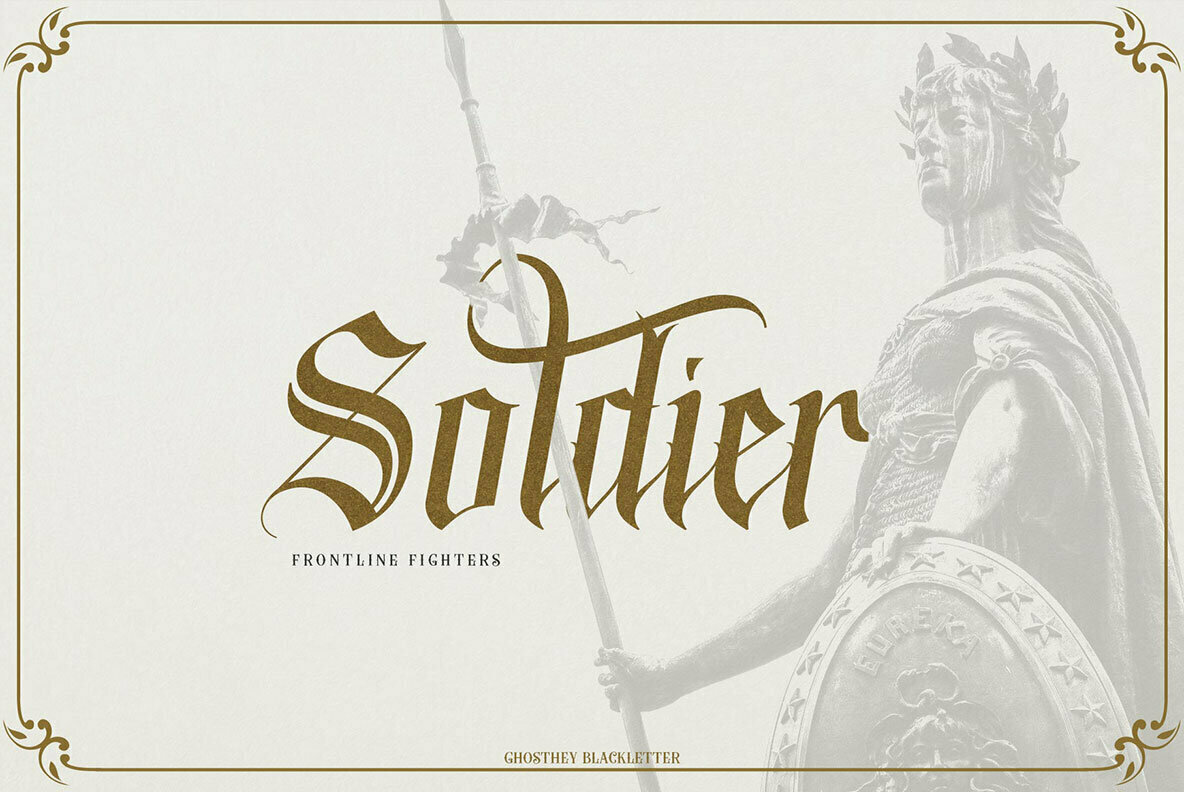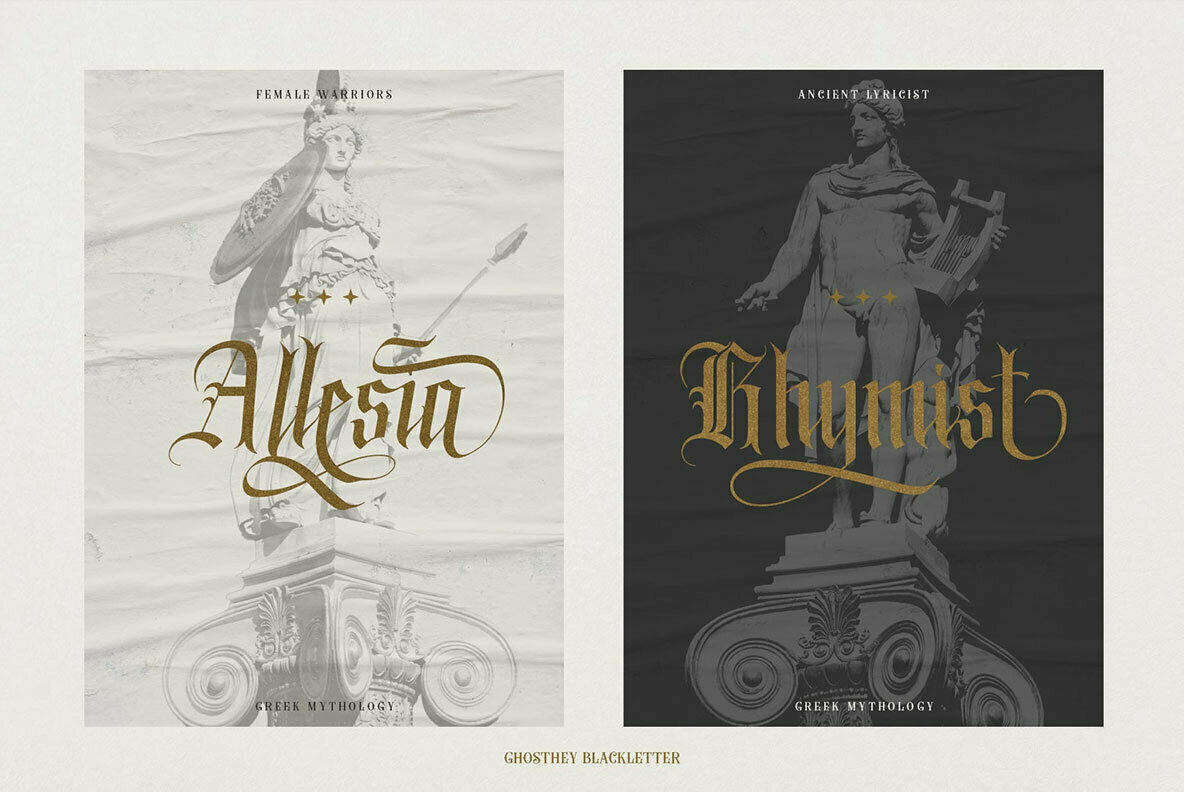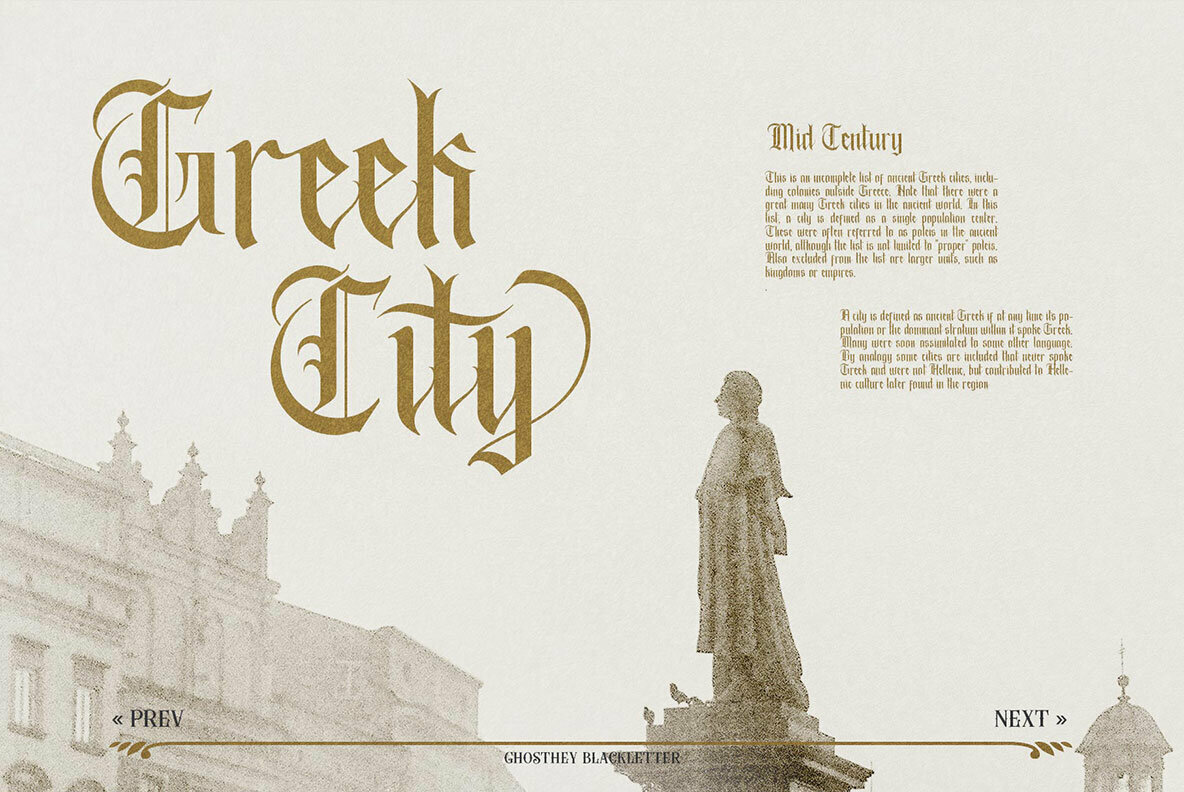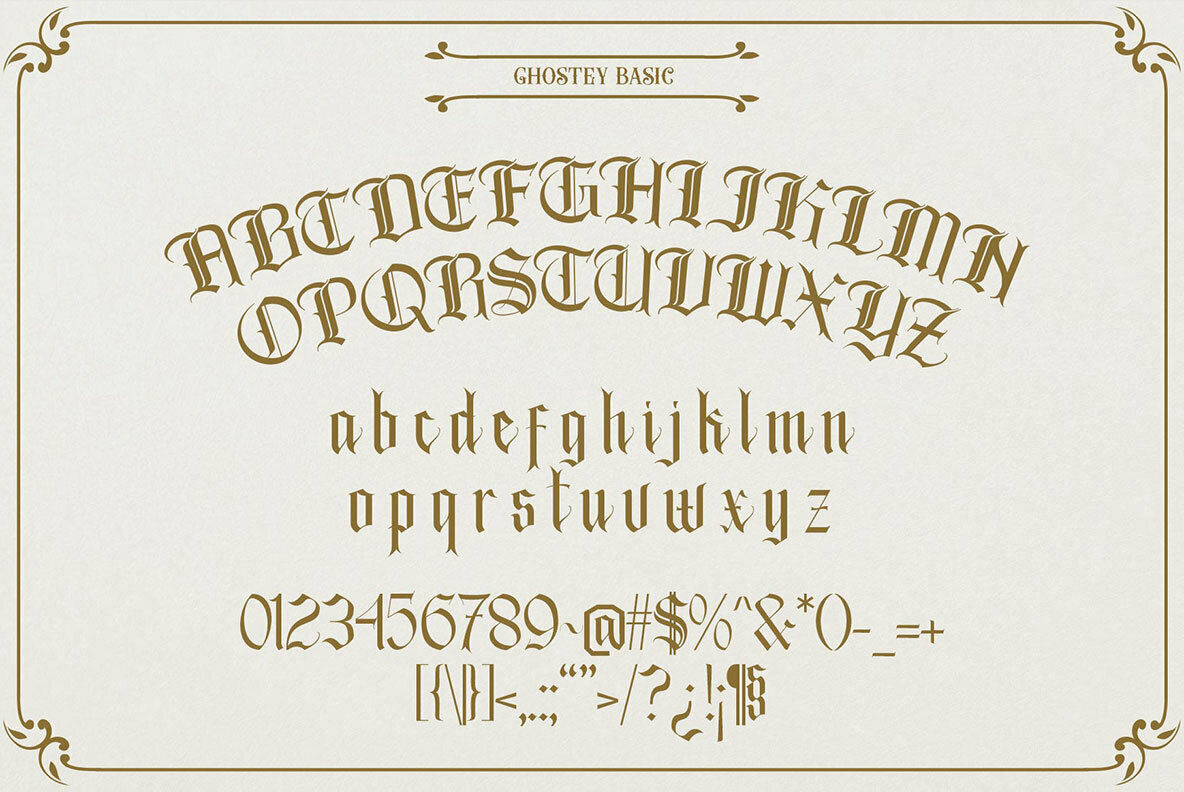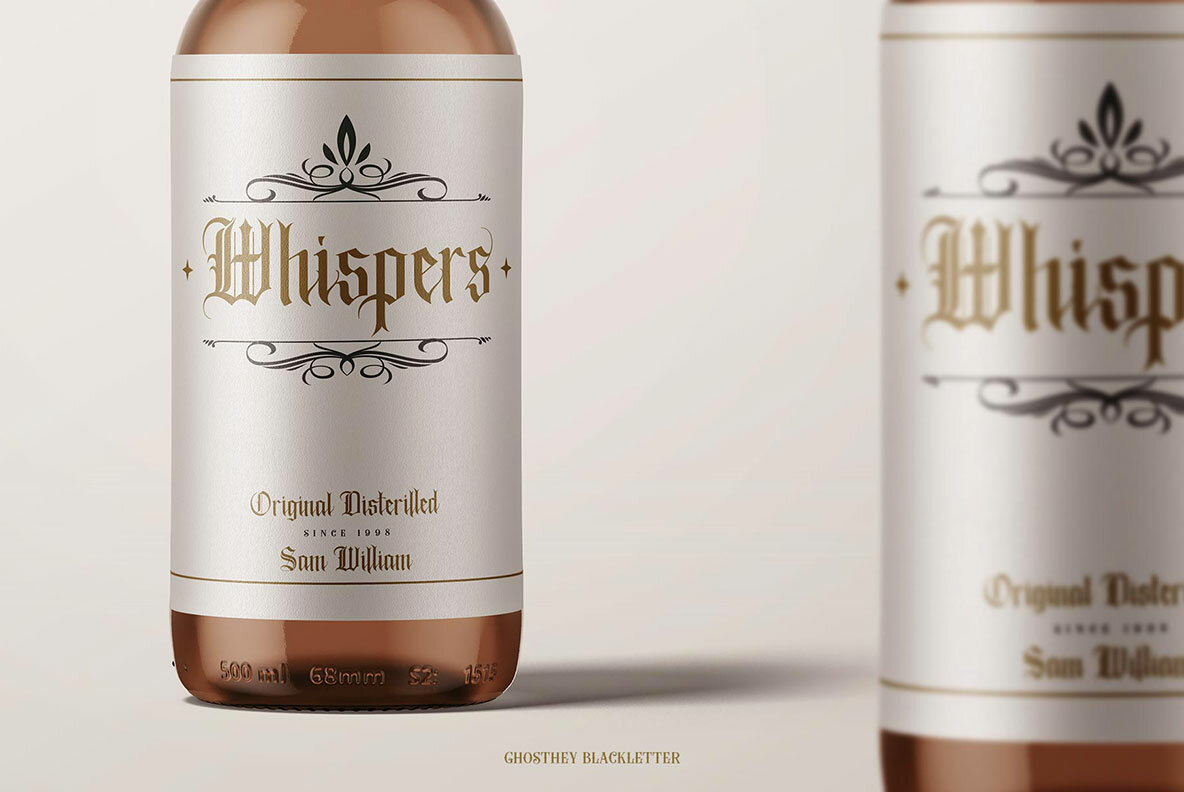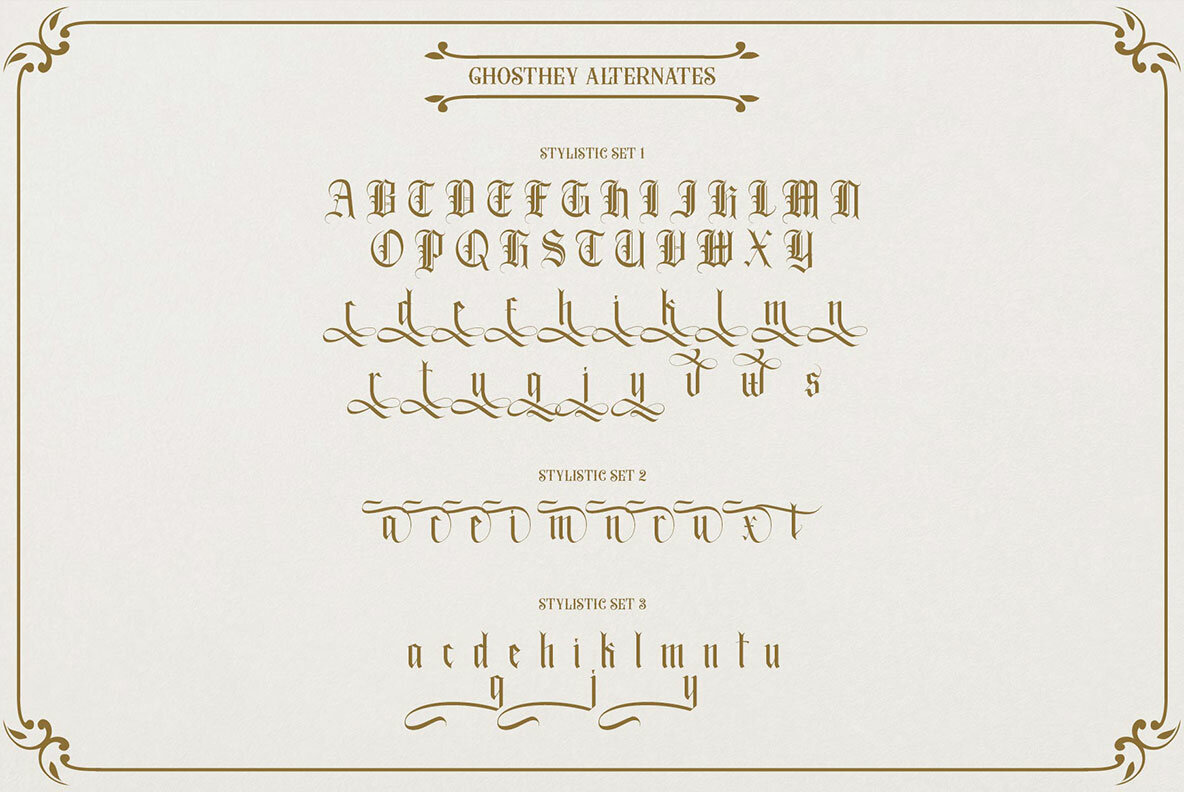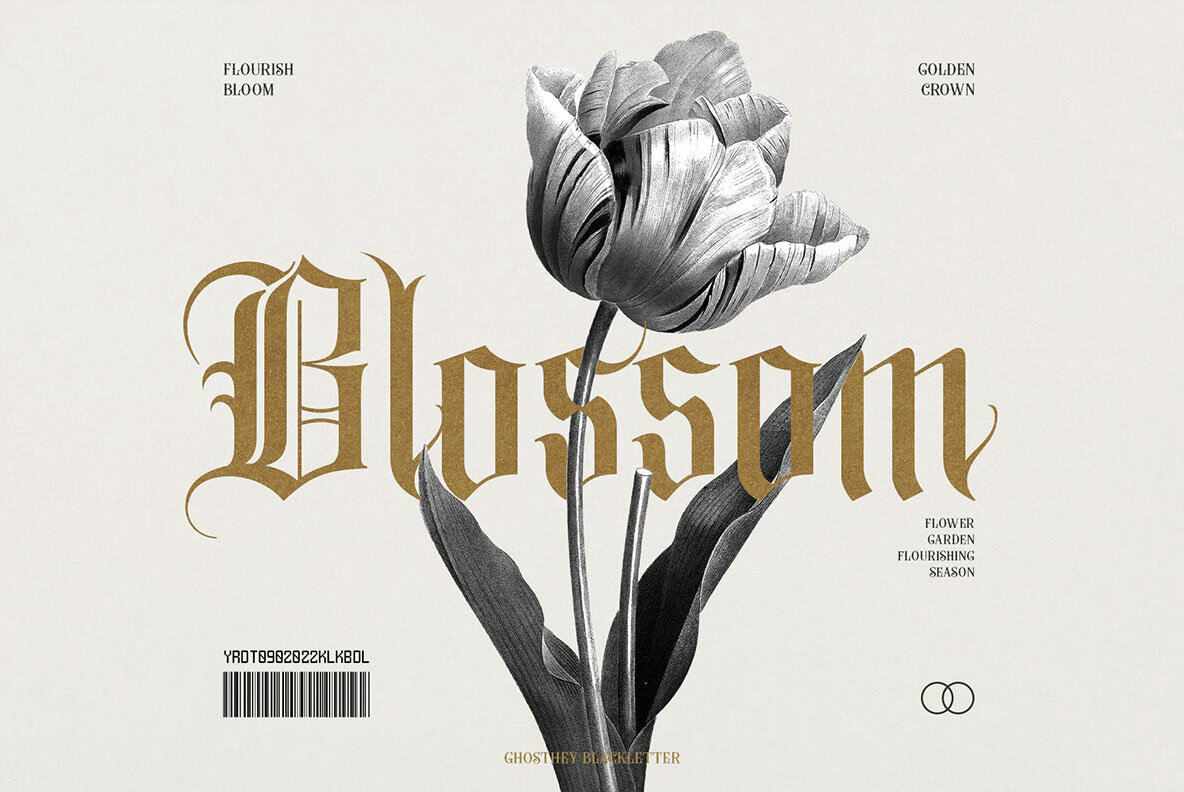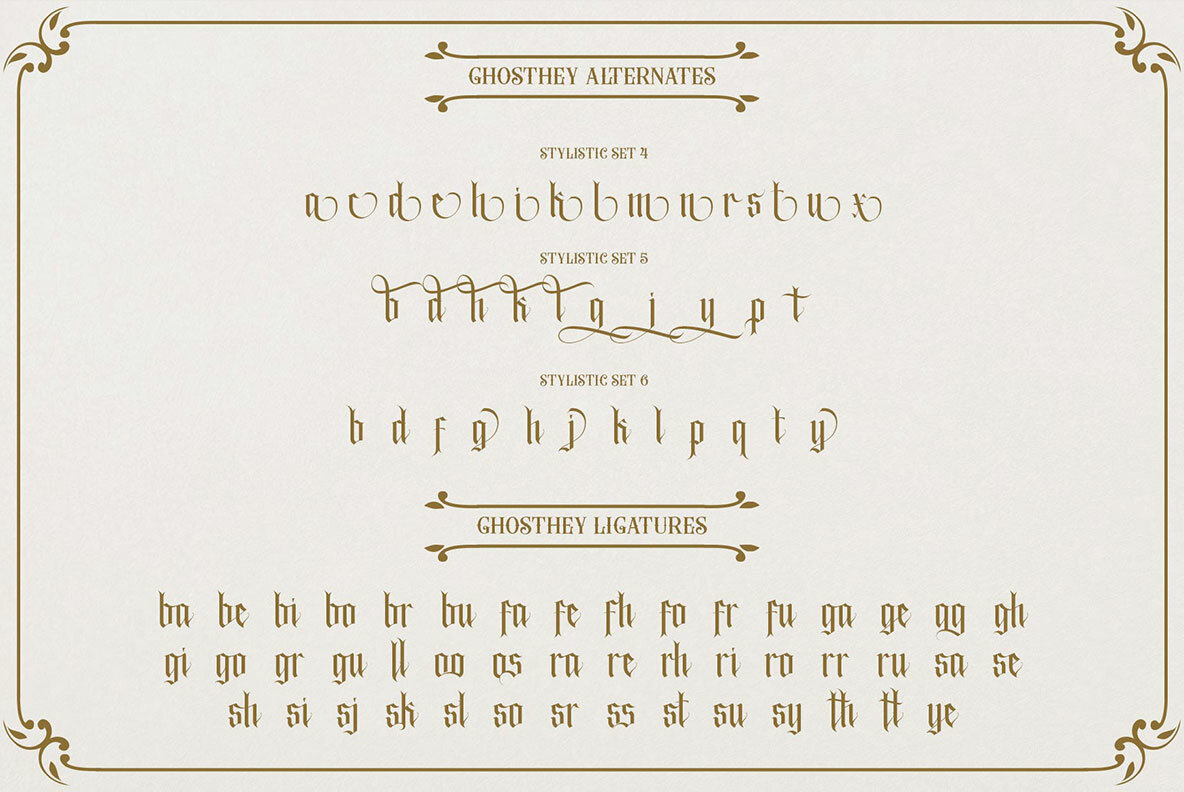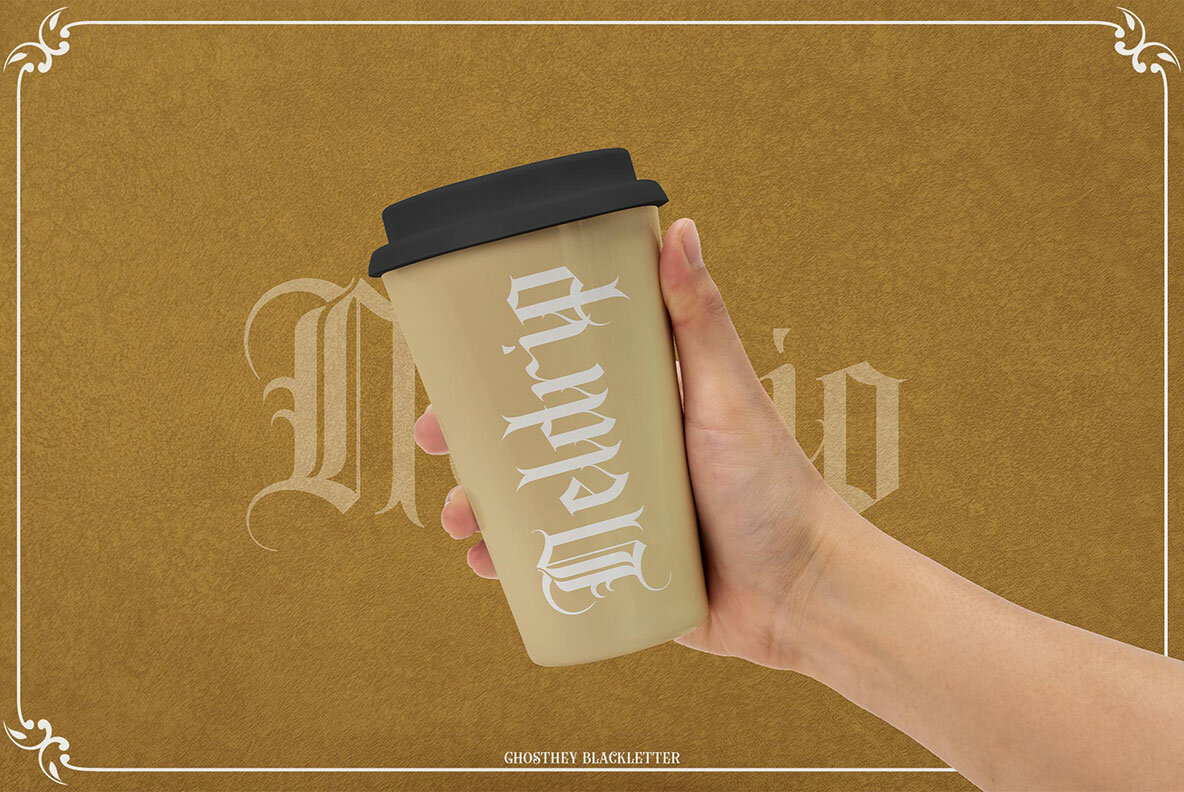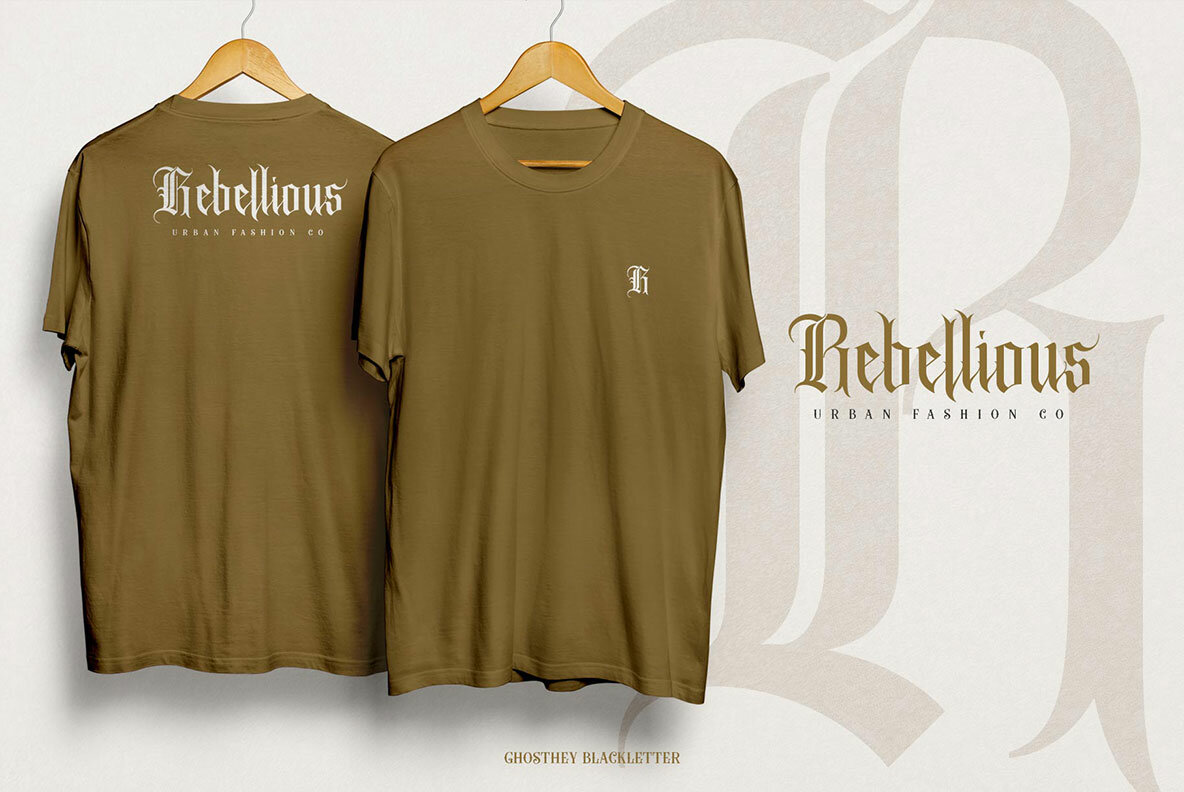
Ghosthey Typeface Font
Ghosthey Regular
Ghosthey Italic
The Ghosthey Typeface embodies the essence of Blackletter while introducing a contemporary touch that retains its strength and uniqueness. This remarkable font provides alternative options, including swashes, ligatures, and alternative characters, offering versatility in designs with robust or moody themes. The Ghosthey Typeface is ideal for crafting visually impactful designs such as music album covers, tattoo logos, whiskey labels, and pomade packaging. Its multilingual support further broadens its applicability across diverse international markets.Ghosthey Typeface: A Modern Blackletter with Unique Flair